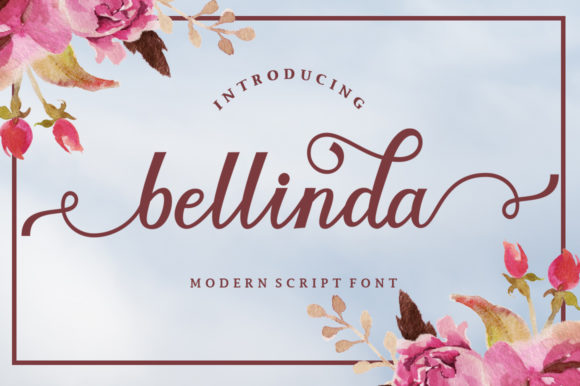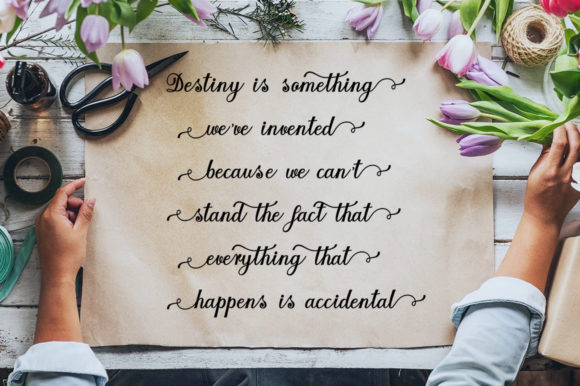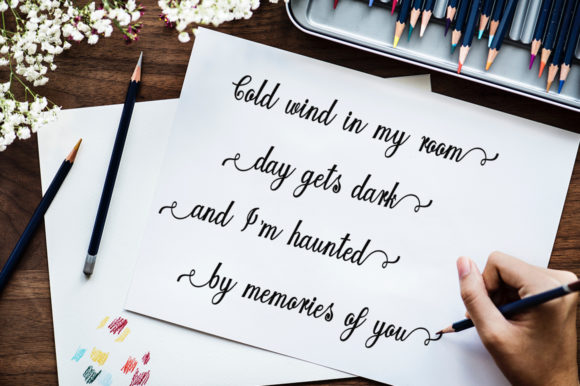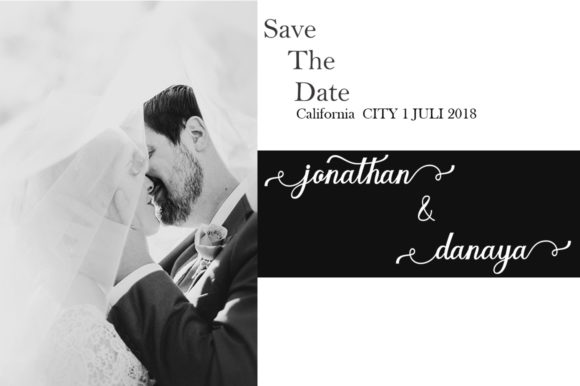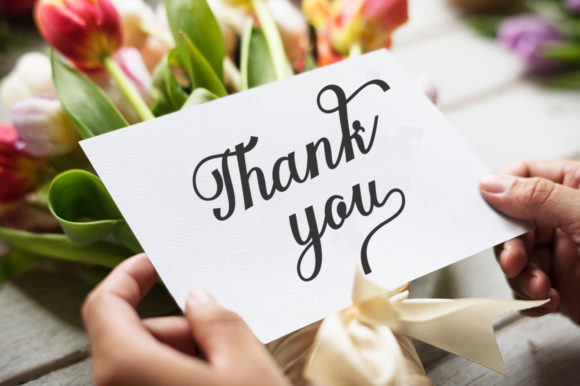
Bellinda Font
About Bellinda Font
The Bellinda is a modern calligraphy script. It has a casual, yet elegant style and includes pretty swashes.
It can be used for various purposes such as: logos, product packaging, weeding invitations, and much more!